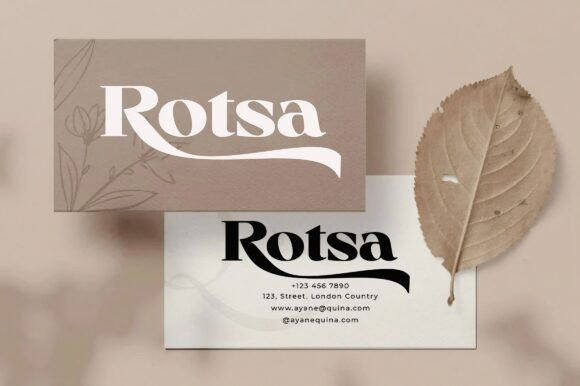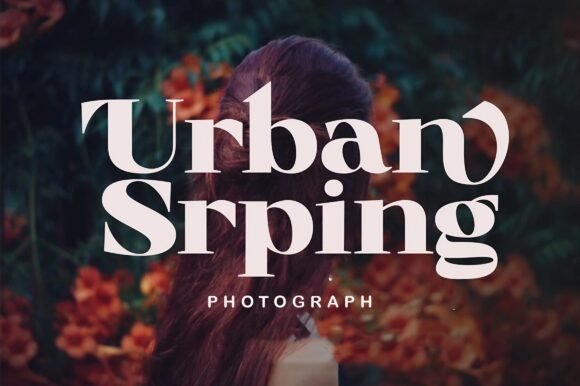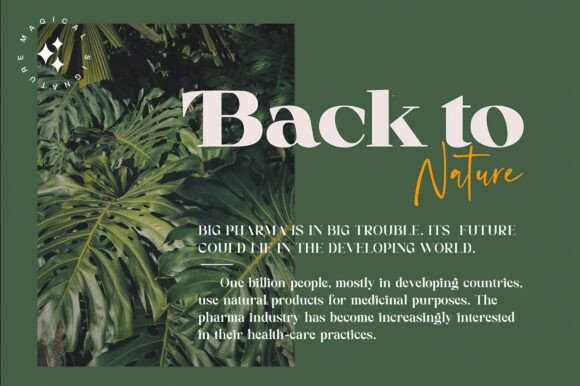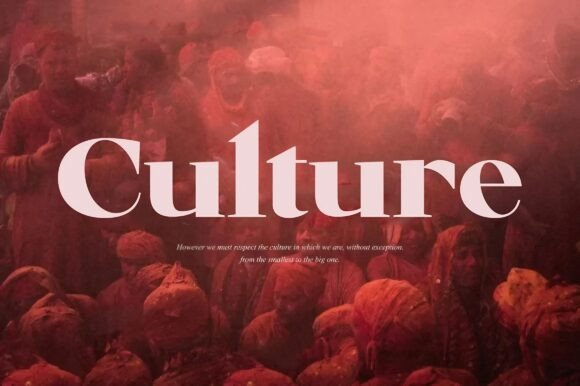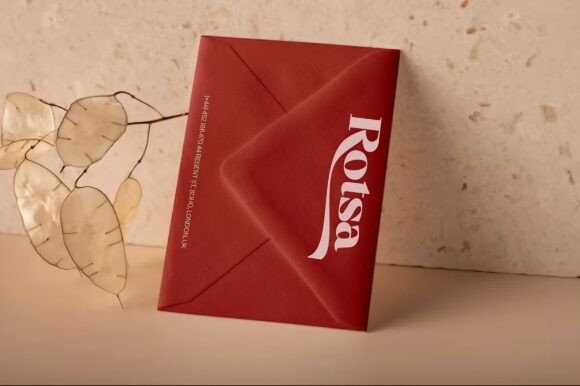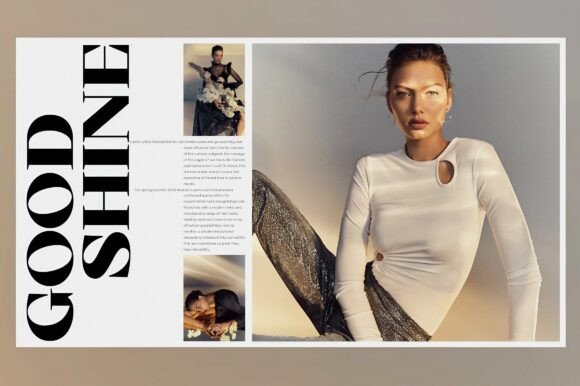
Qatom Font Font – Free Download
Introduction to Qatom Font Font
Fonts play a crucial role in design, and the Qatom Font font is a typeface that brings both character and versatility to any project. Whether you’re working on a branding project, a website, or a print design, the Qatom Font font offers a unique style that can elevate your work.
Qaton Serif Bold is a striking and versatile font that combines the elegance of traditional serifs with a modern boldness.
Its strong lines and balanced proportions create a sophisticated yet commanding presence, making it perfect for headlines, logos, and branding materials .
Key Features of Qatom Font Font
Why Choose Qatom Font Font?
The Qatom Font font is more than just a typeface – it’s a design tool that helps you communicate your message with style and clarity. Its unique character set and versatile design make it suitable for a wide range of applications, from elegant invitations to bold headlines.
With its carefully crafted letterforms and balanced proportions, the Qatom Font font ensures readability and visual appeal across all mediums.
What makes Qatom Font font special?
The Qatom Font font stands out with its unique design, exceptional readability, and versatility across various design applications.